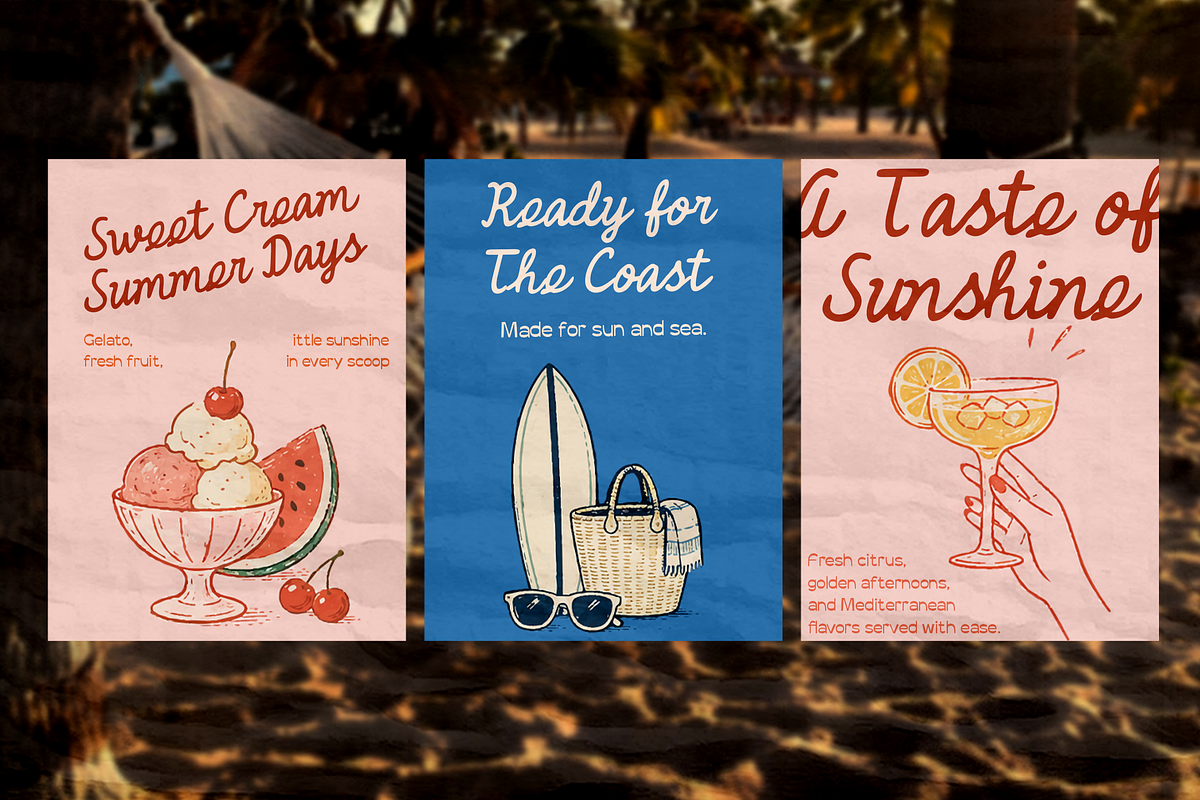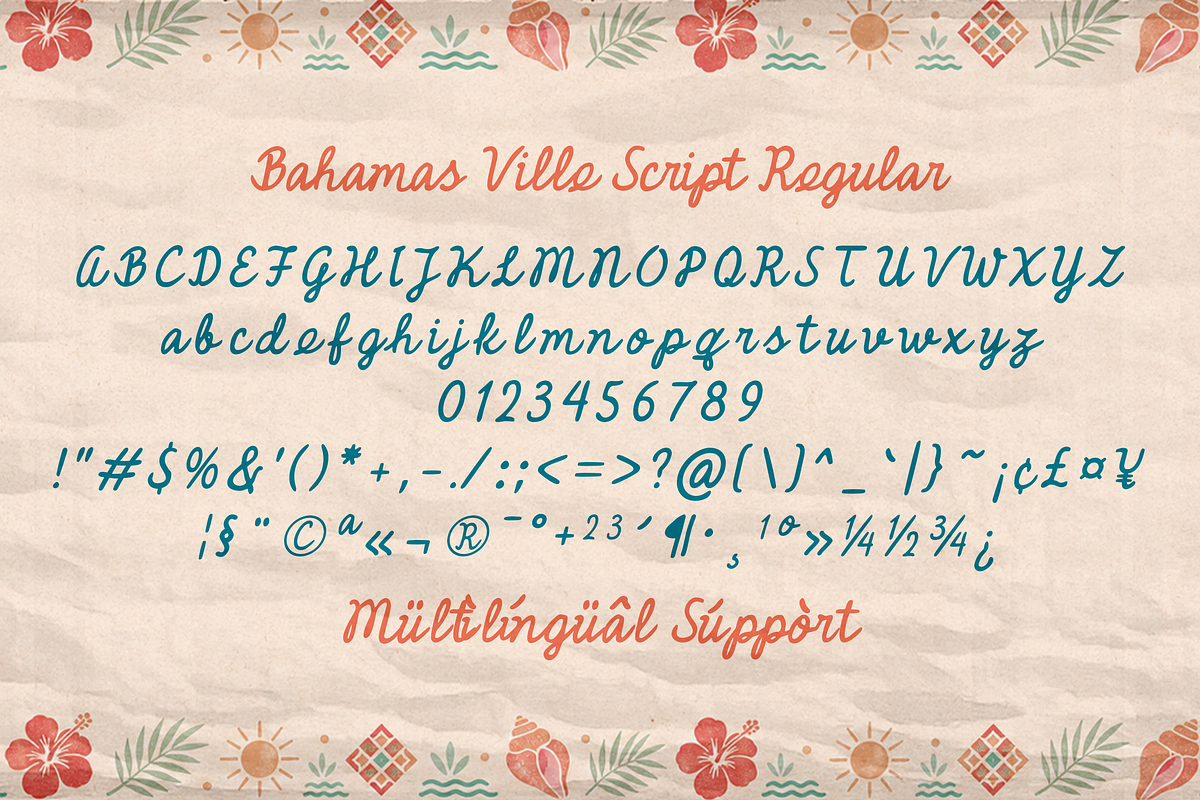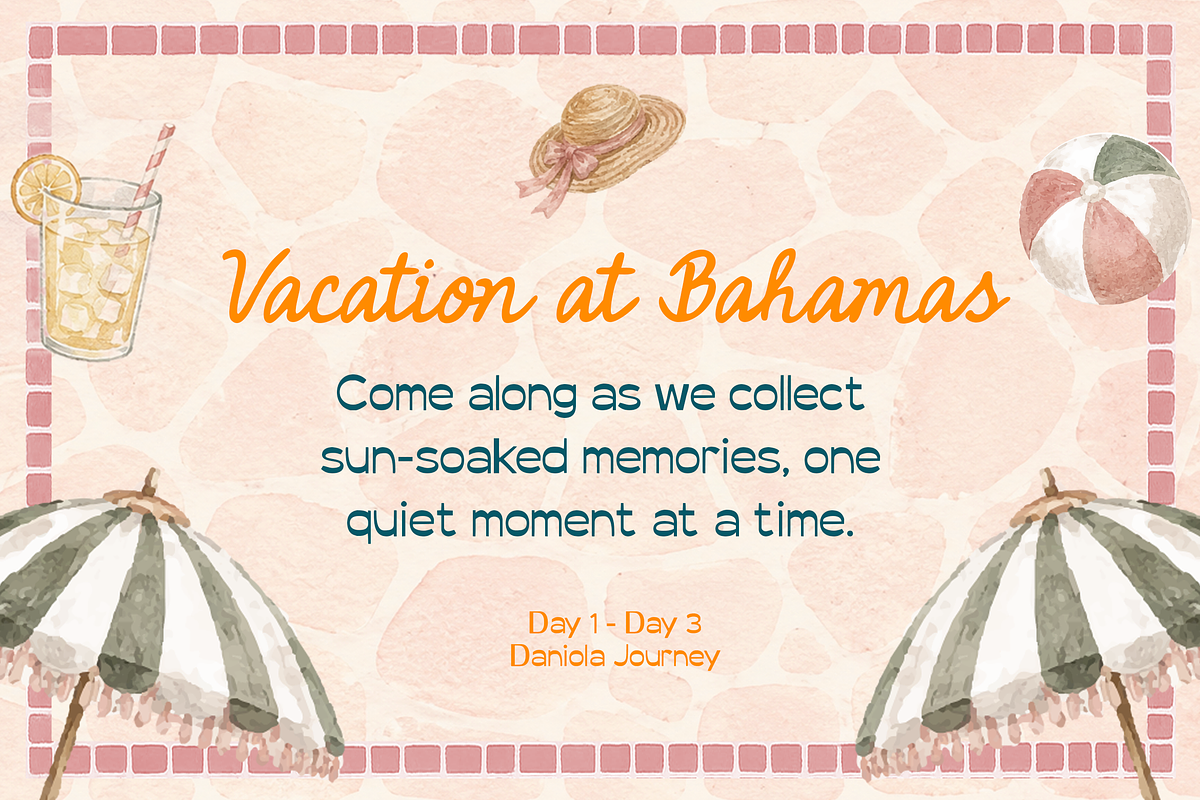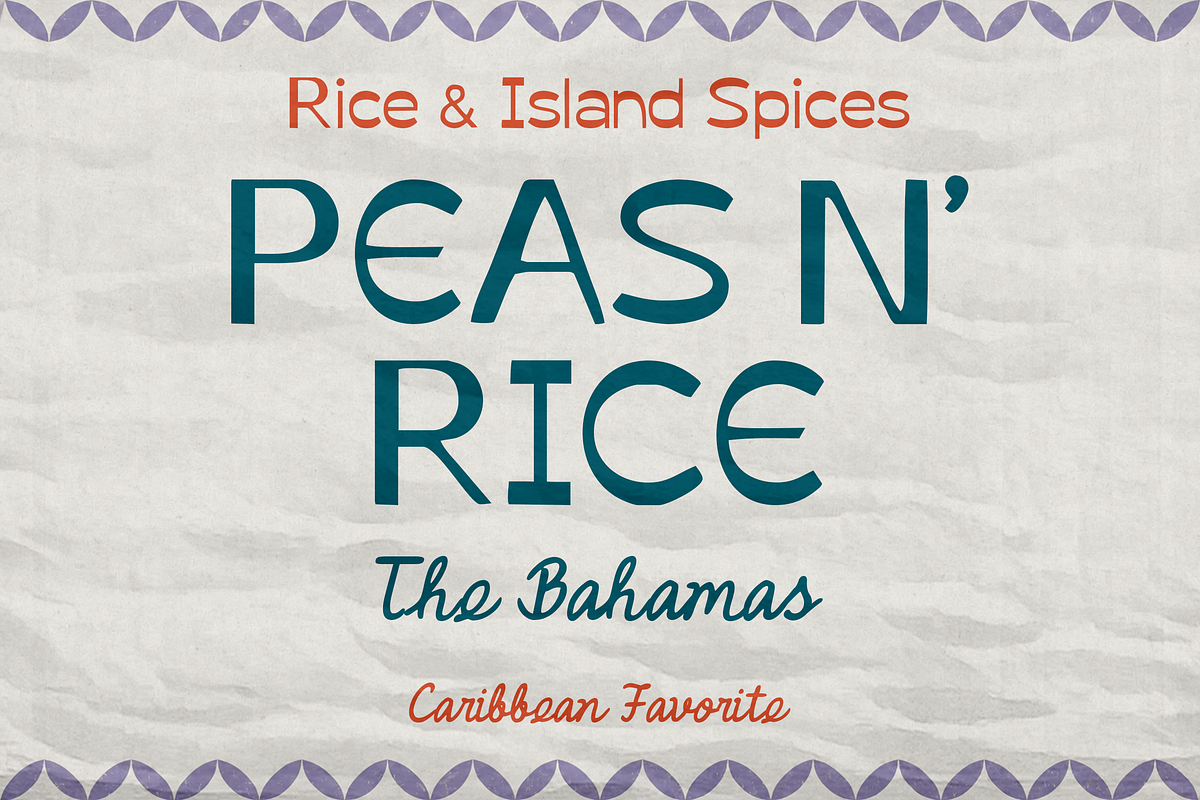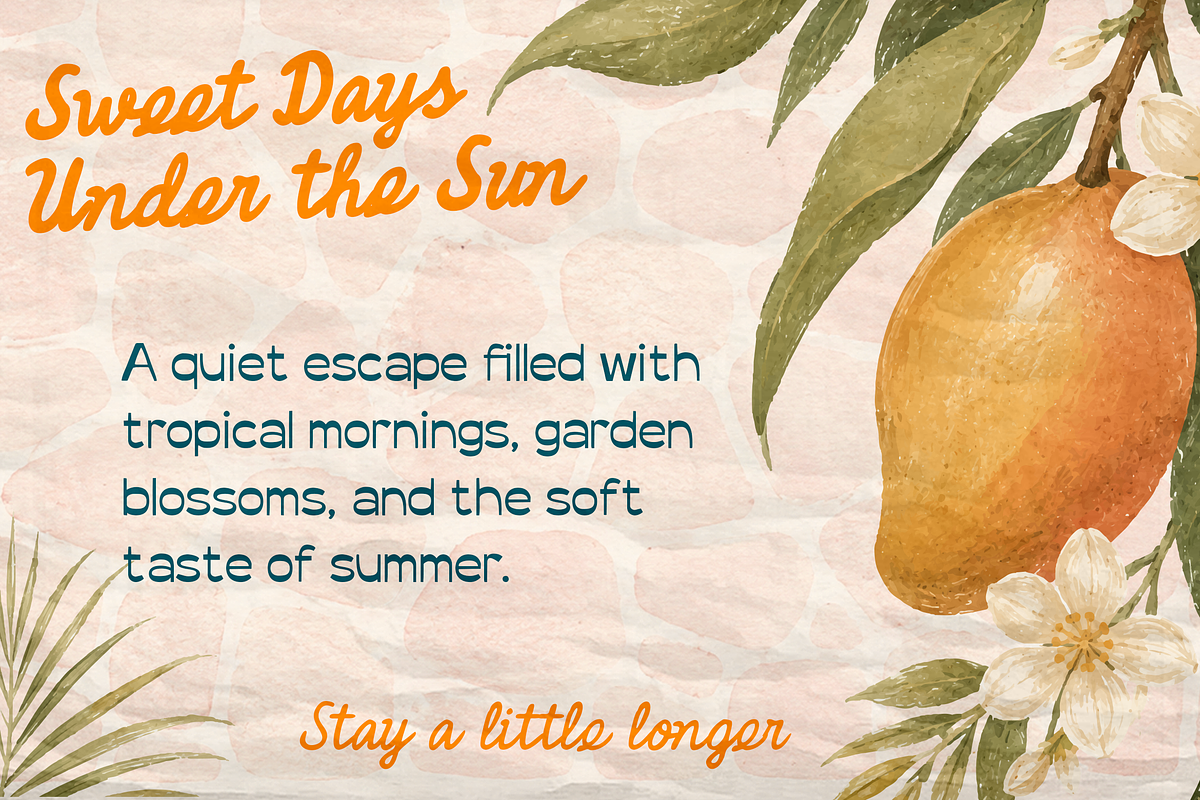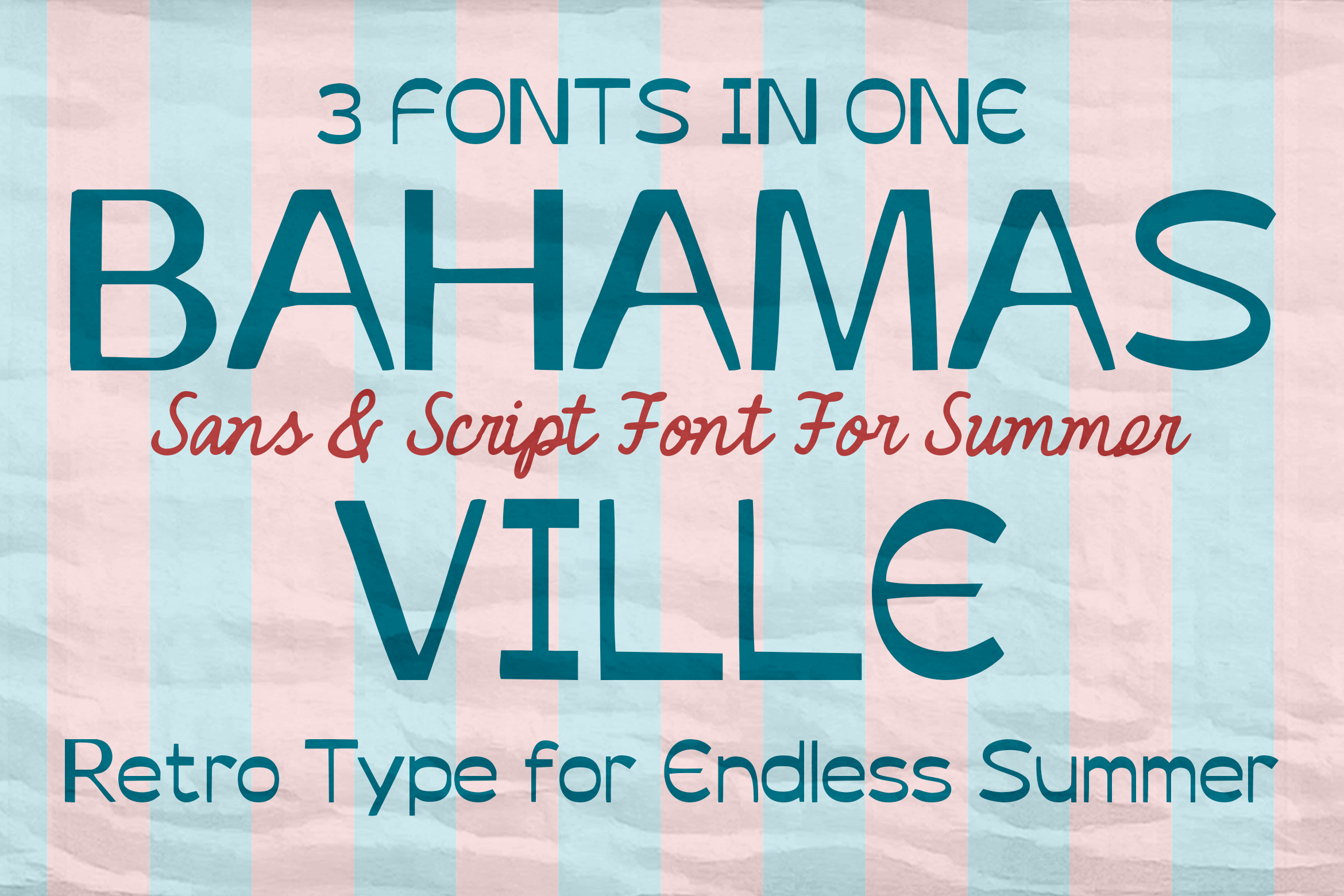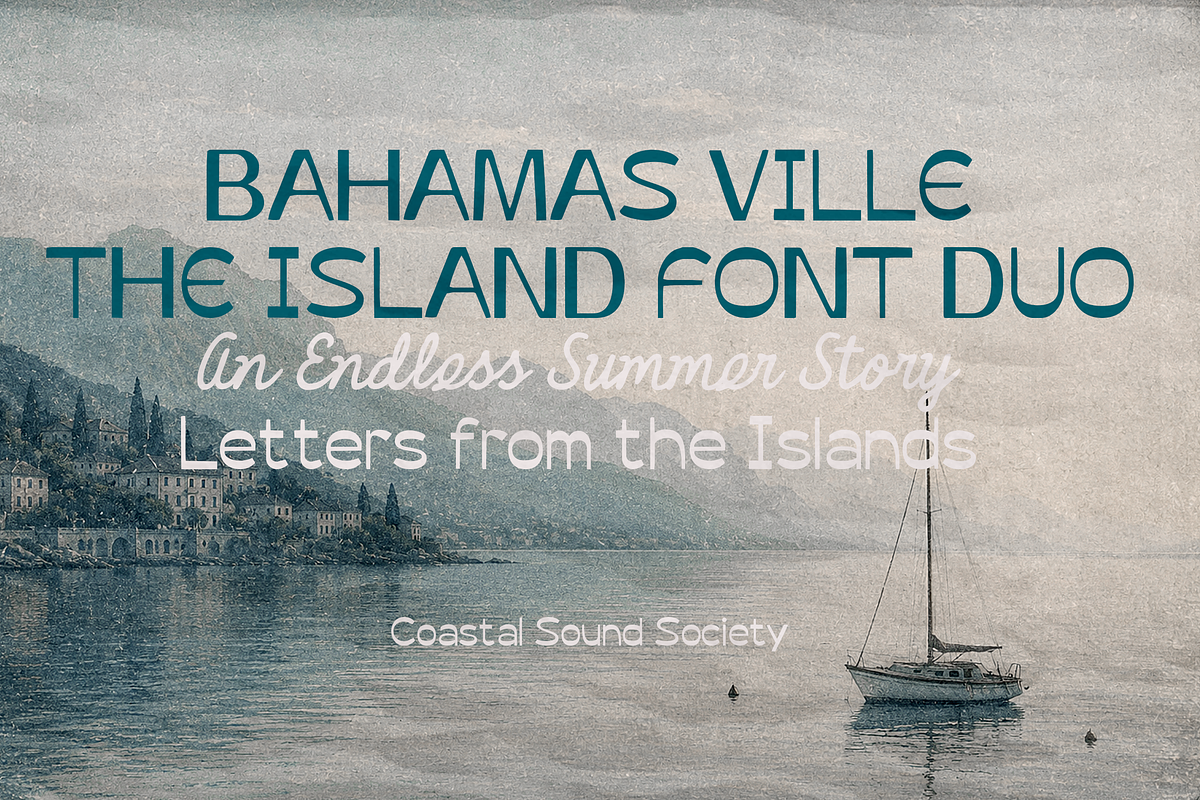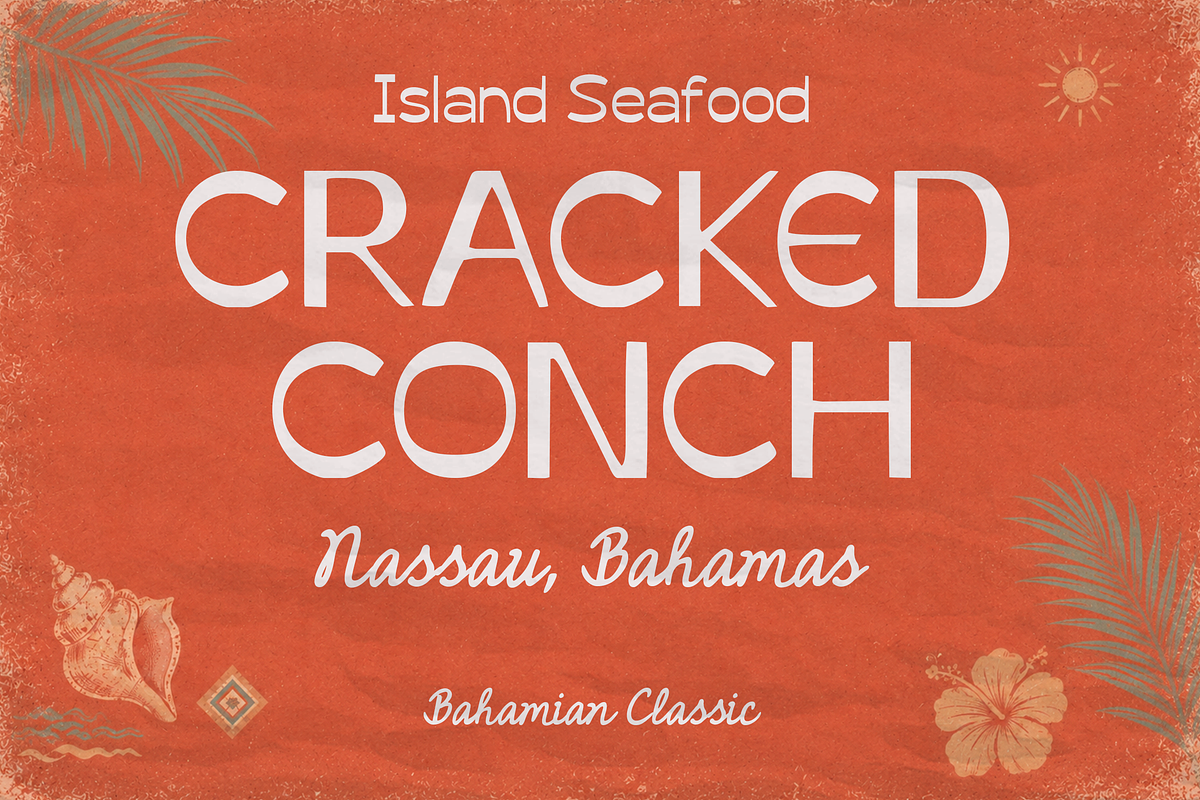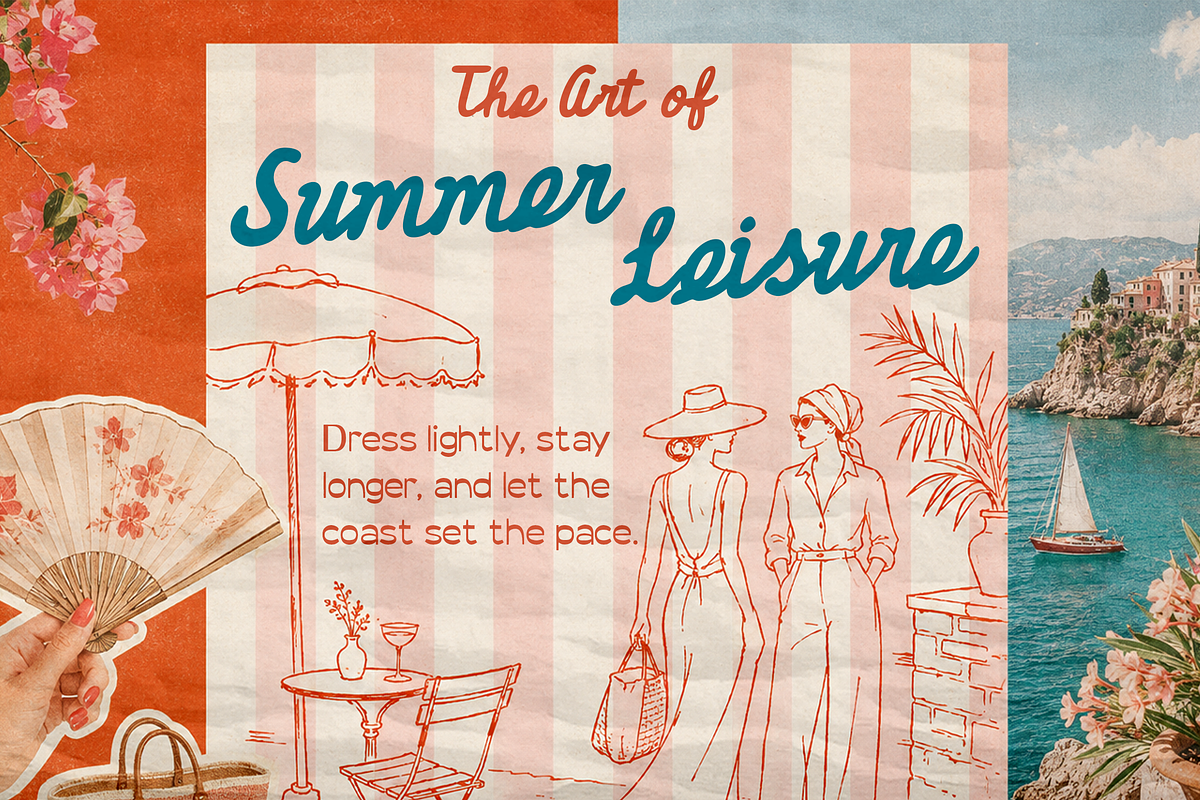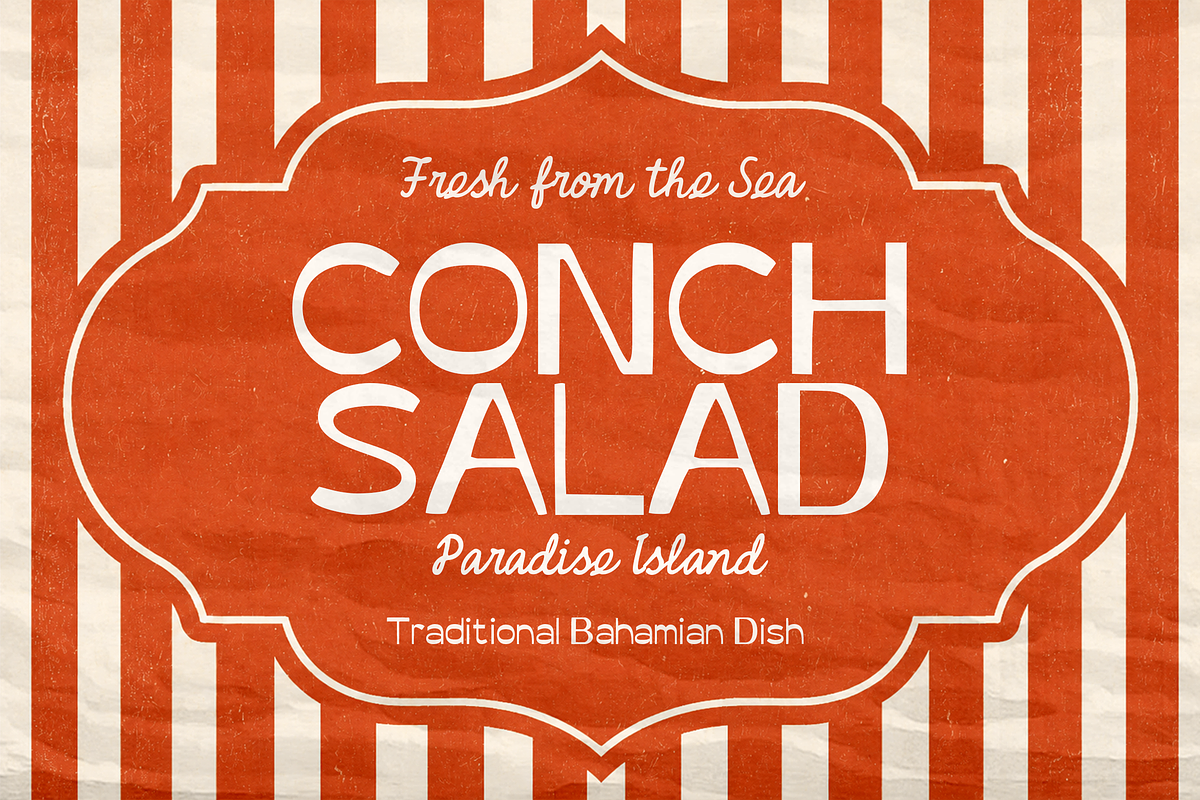
Bahamas Ville Retro Font Duo
Bahamas Ville is a casual script and sans serif duo, built as a companion pair for bright, laid-back branding with a hand-lettered, tropical feel. The script carries loose, connected strokes with a relaxed right lean and generous loops on its ascenders and descenders, more beach-party energy than formal calligraphy. Its companion sans keeps things grounded with rounded, bubbly bowls and a generous x-height that stays legible at small sizes.
What sets Bahamas Ville apart is having the script itself in two weights. The regular script keeps a lighter touch for longer lines of text, while the bold script punches up headlines and short lockups without losing the loop-driven connections underneath. Paired with the sans, the duo gives a project two moods from one hand: an energetic, hand-lettered accent and a steady, rounded voice to carry the rest of the message.
Picture the bold script splashed across a beach bar sign or a vacation postcard, with the sans handling the address or menu details underneath in a clean, steady line. That contrast, bold and bouncy up top, calm and readable below, is where this pairing does its best work.
Bahamas Ville suits beach and resort branding, tiki bar and restaurant signage, summer camp branding, vacation postcards and travel graphics, party invitations, and packaging for summer products. The sans half also stands on its own for straightforward headline or body use where the script would be too much.